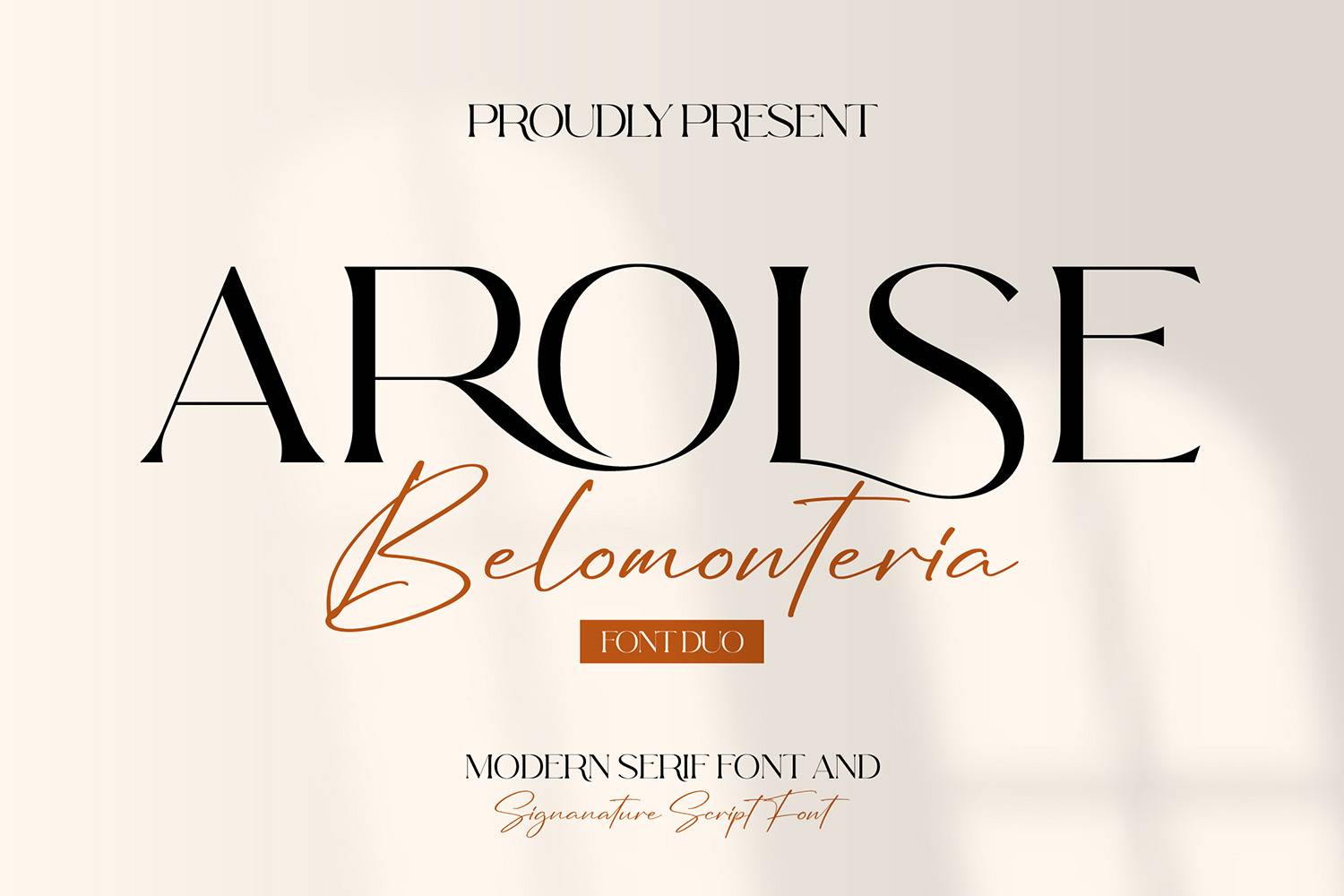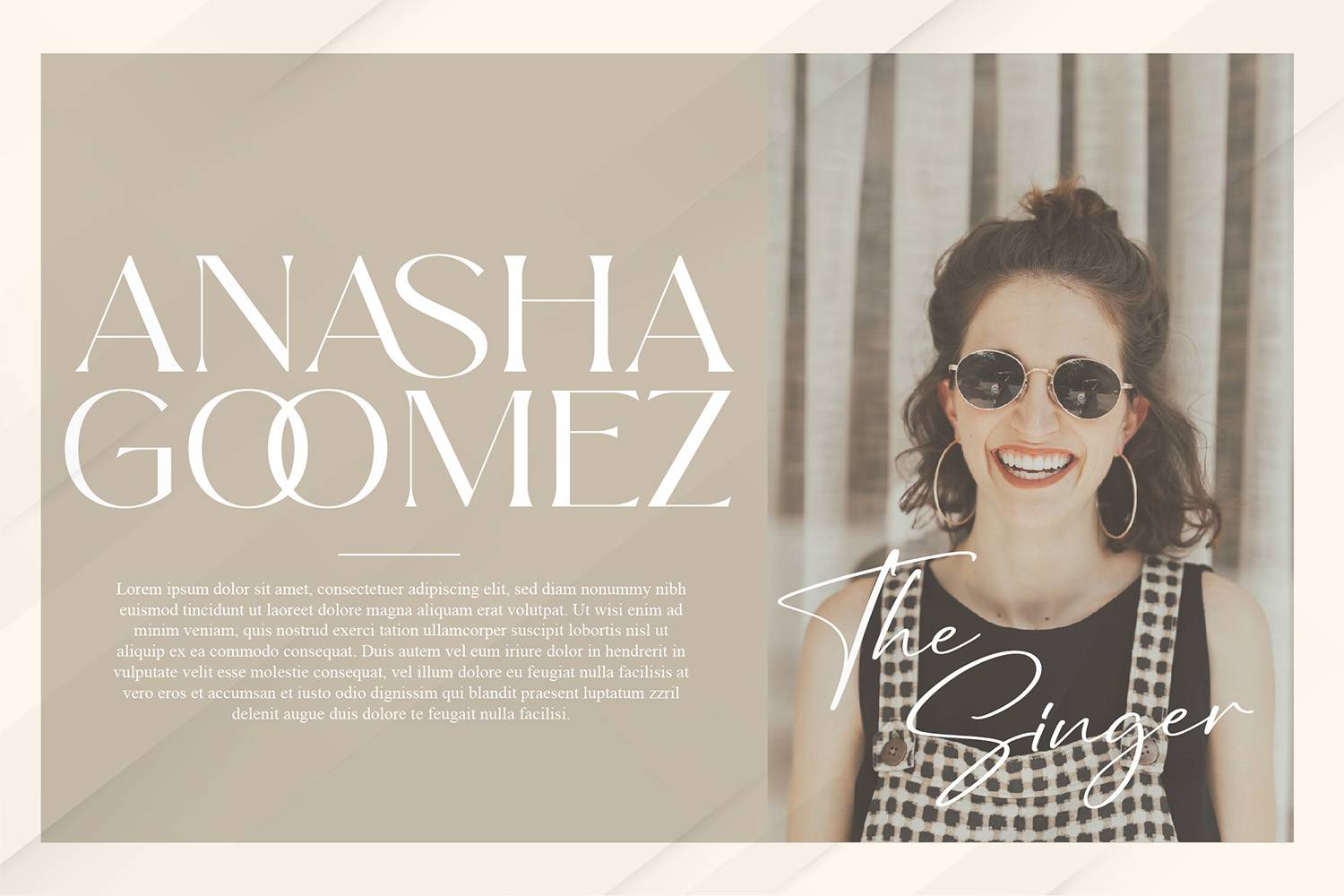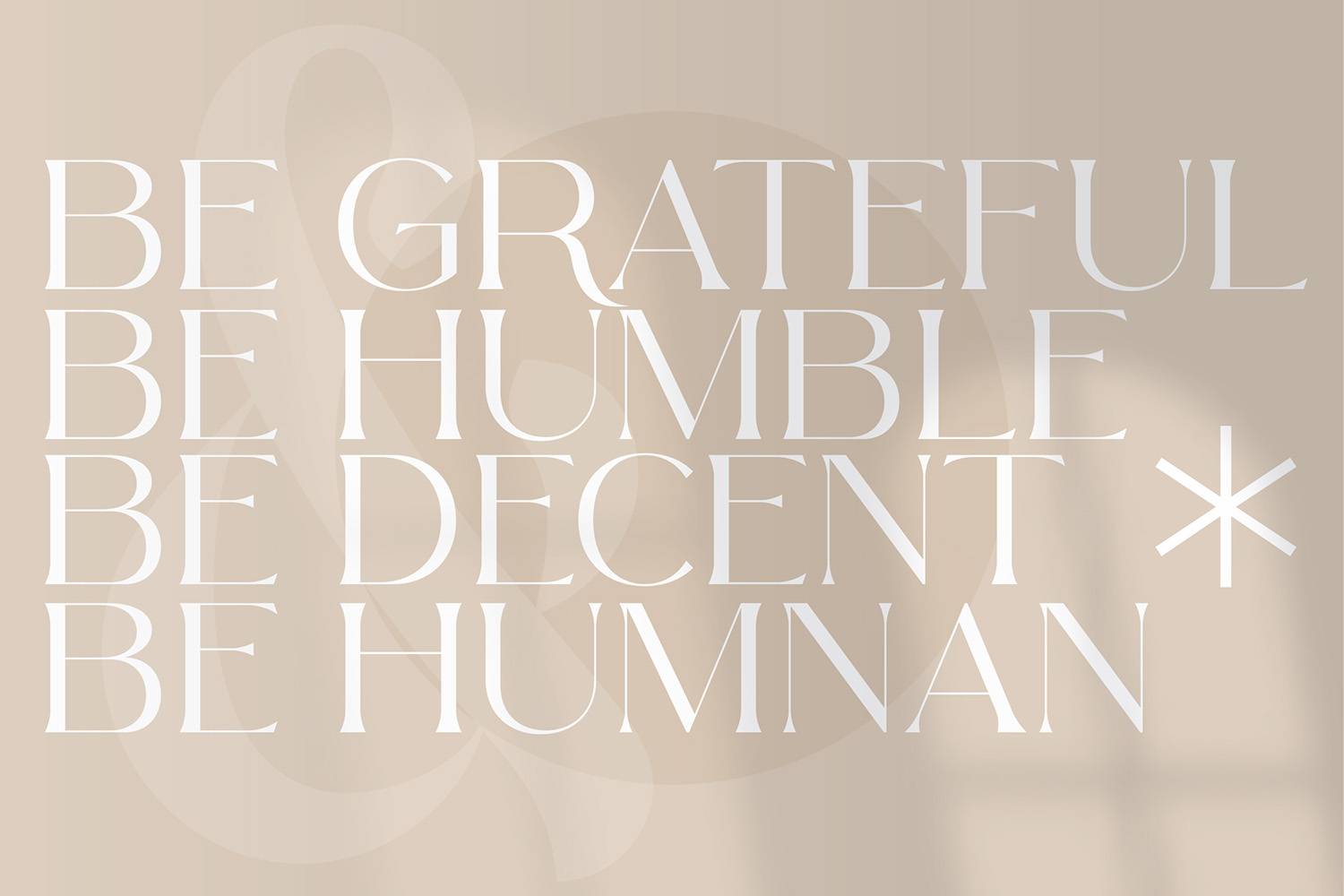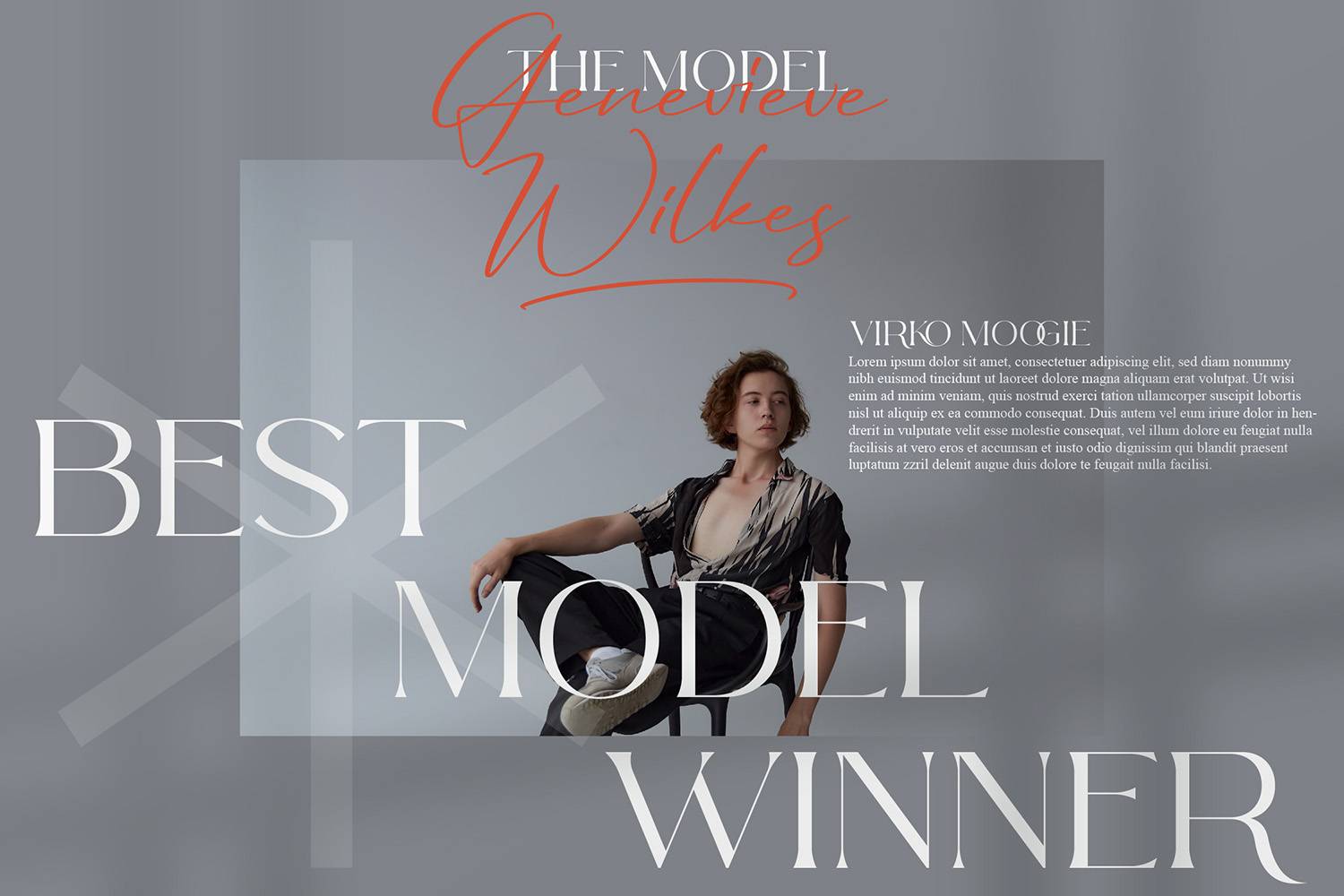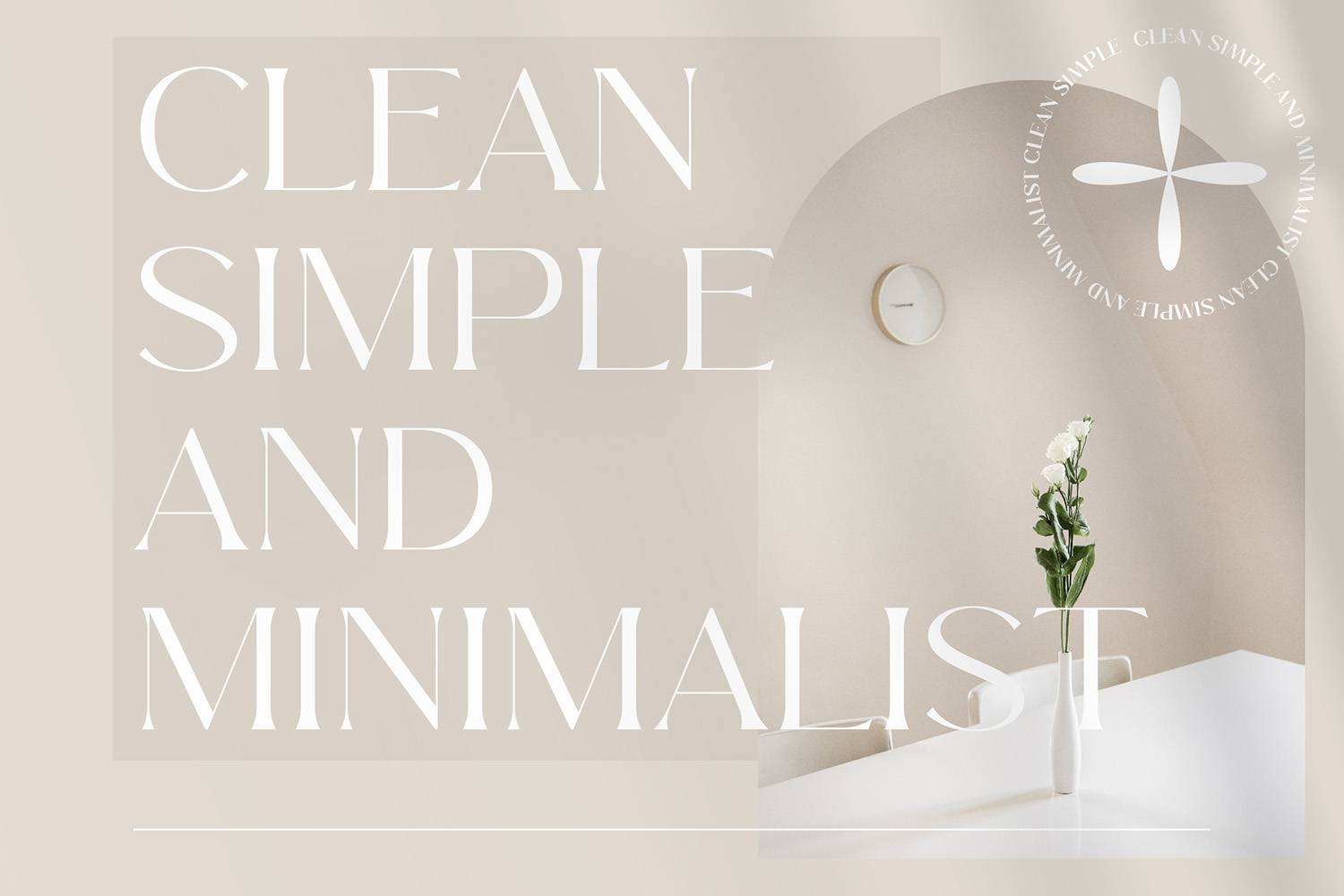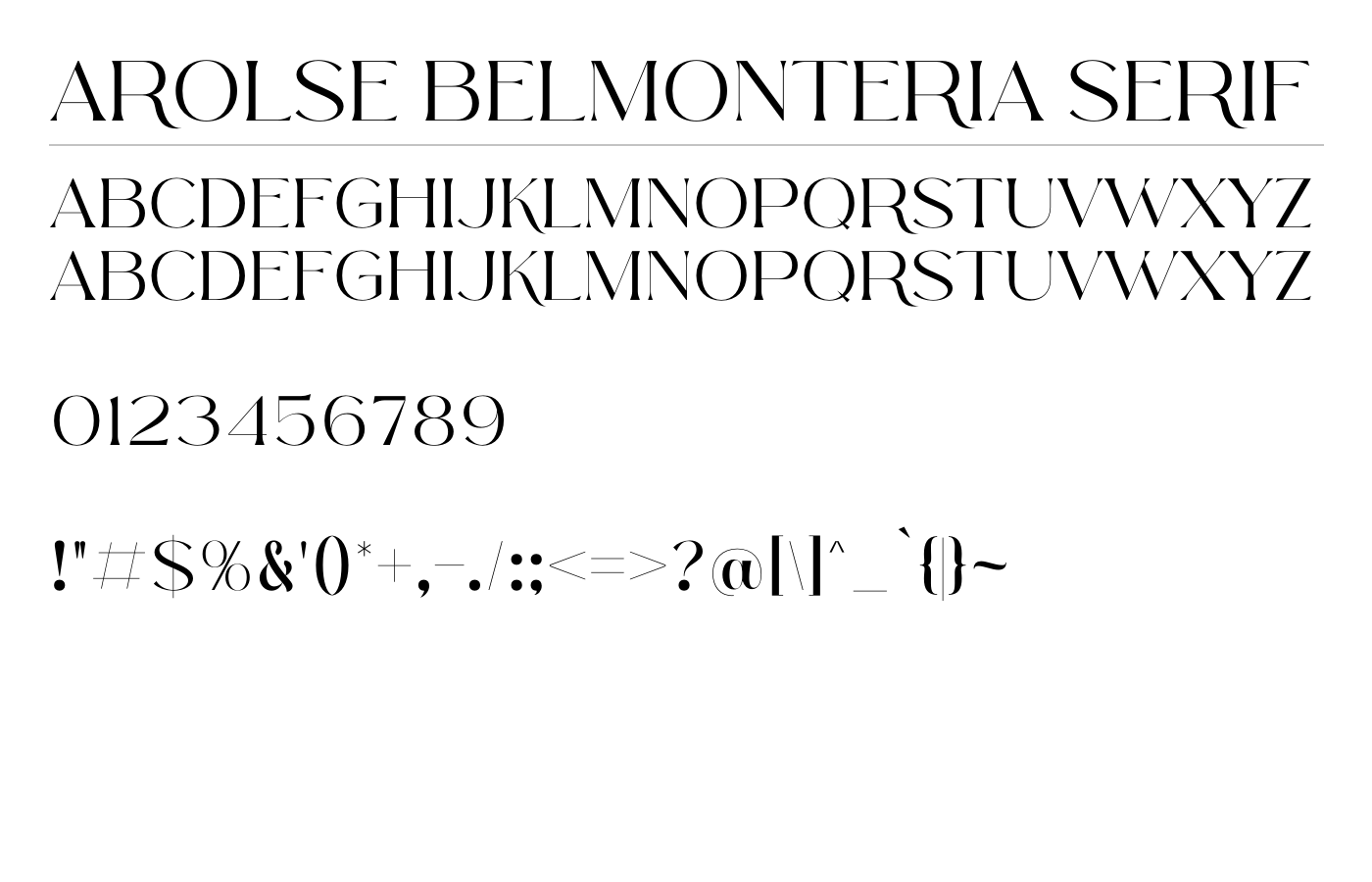
Arolse Belmonteria is an elegant serif font characterized by its high contrast between thick and thin strokes and stylish, sharp serifs that give it a refined, modern luxury feel. With its tall, narrow letterforms and distinct flair in characters like the R and Q, it works beautifully for high-end branding, editorial headlines, and sophisticated packaging where a classy, timeless impression is desired. This font shines best in display settings, lending an air of sophistication and artistic charm.
Arolse Belmonteria Font
About Arolse Belmonteria Font